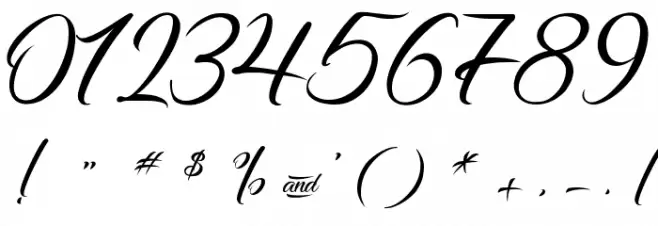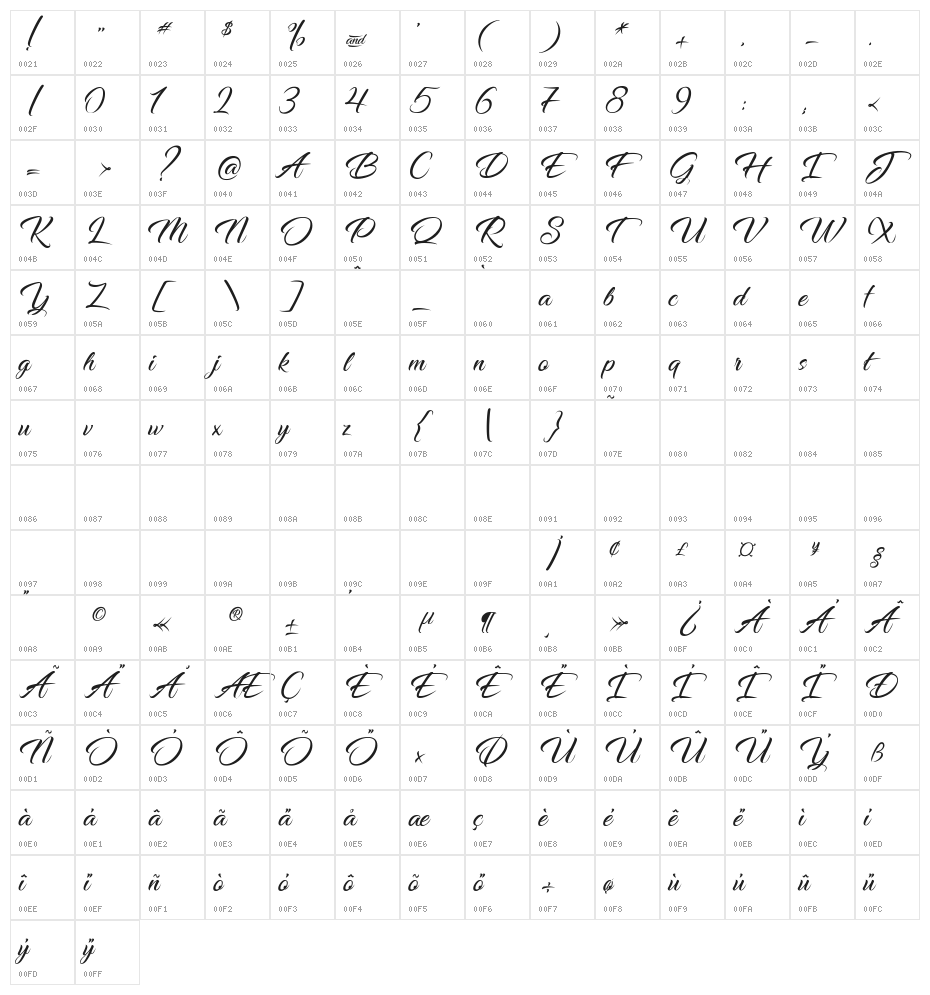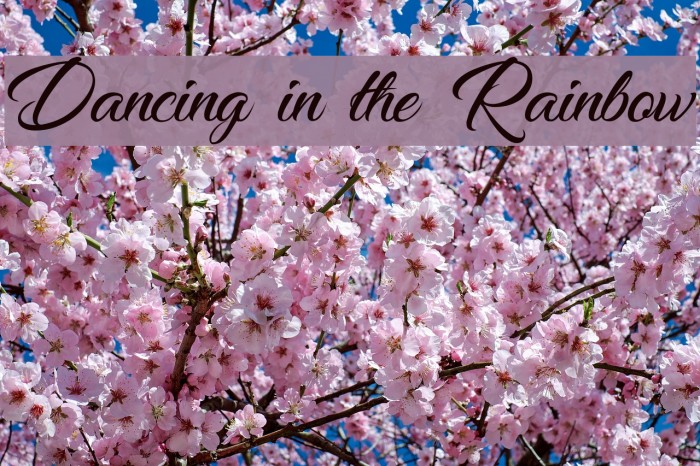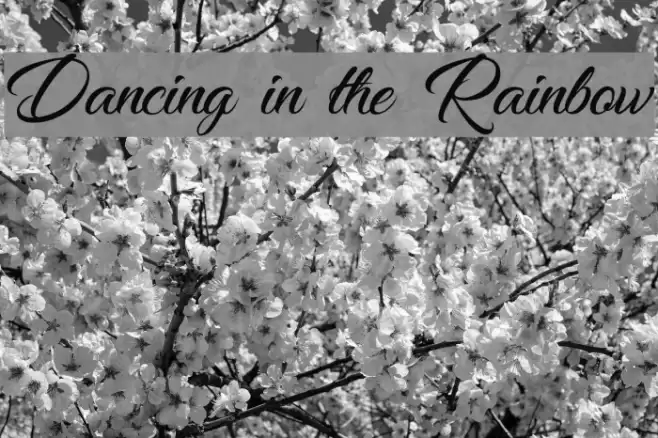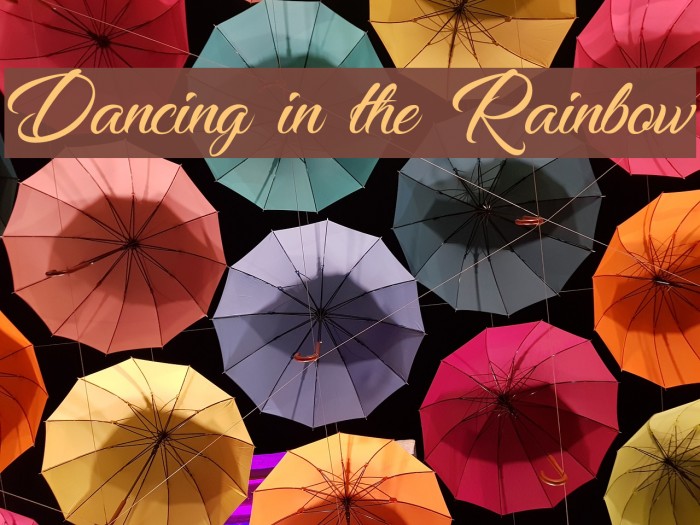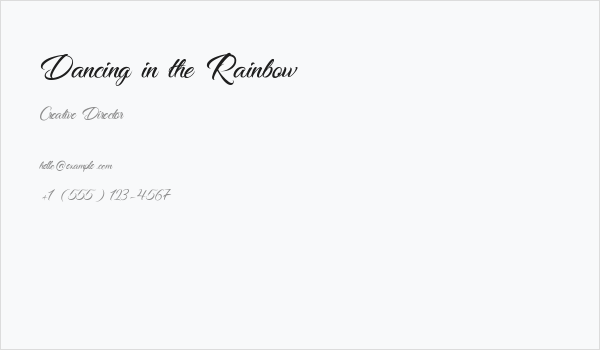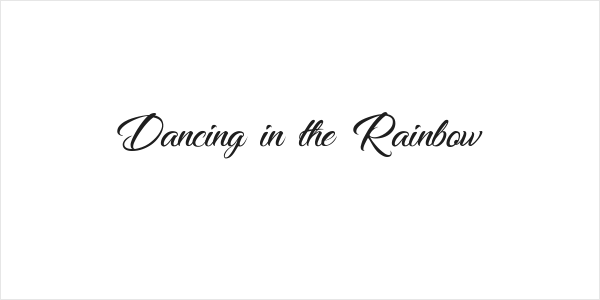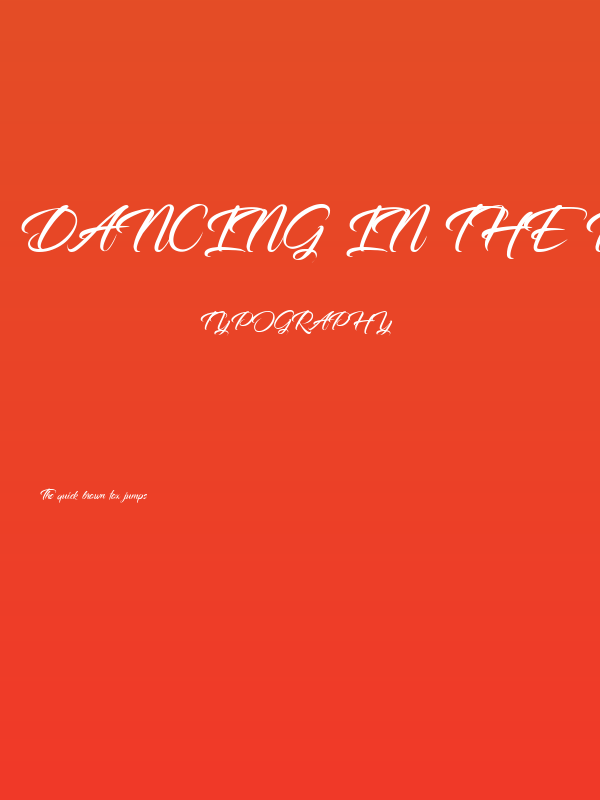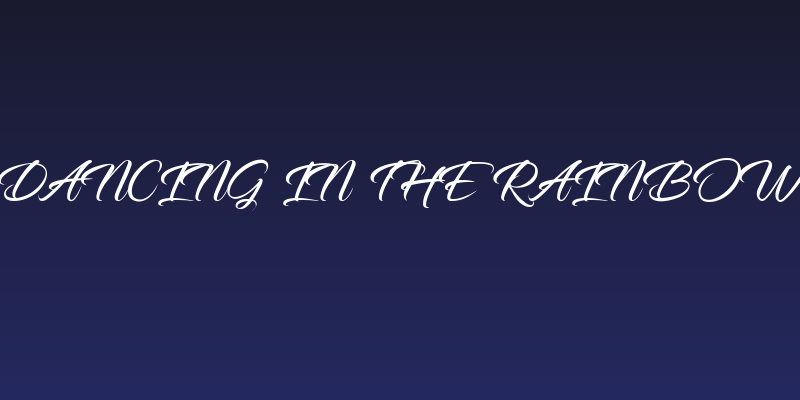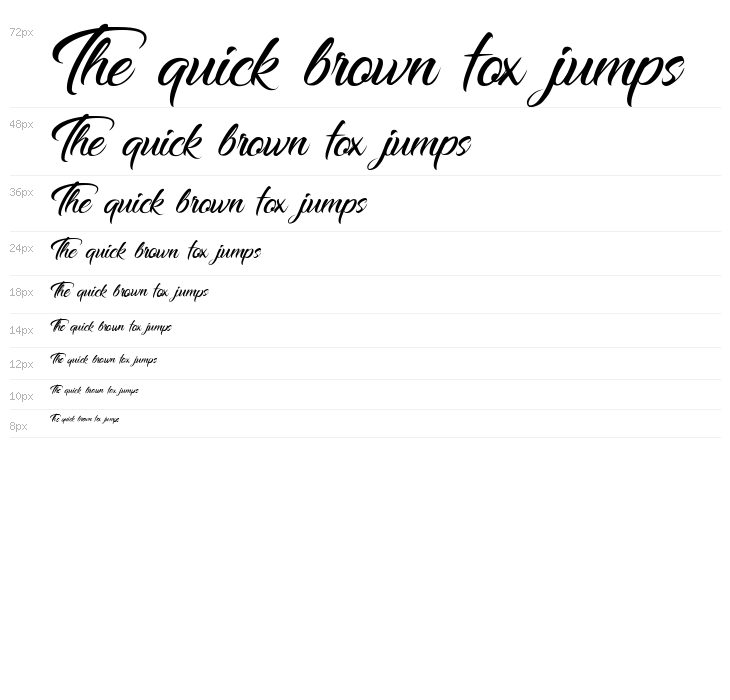
Dancing in the Rainbow Font
Dancing in the Rainbow Description
This elegant script font features fluid, cursive strokes that convey a sense of sophistication and grace. The uppercase letters are ornate, with sweeping curves and flourishes that add a touch of drama. The lowercase letters maintain a consistent flow, enhancing readability while preserving the decorative style. Numbers and special characters are designed with the same attention to detail, ensuring a cohesive look across all text elements. The font's overall appearance is both classic and modern, making it versatile for various design applications.
| Overall Style | Elegant, Classic |
| Proposed Projects | Ideal for wedding invitations, elegant branding, greeting cards, and upscale packaging. |